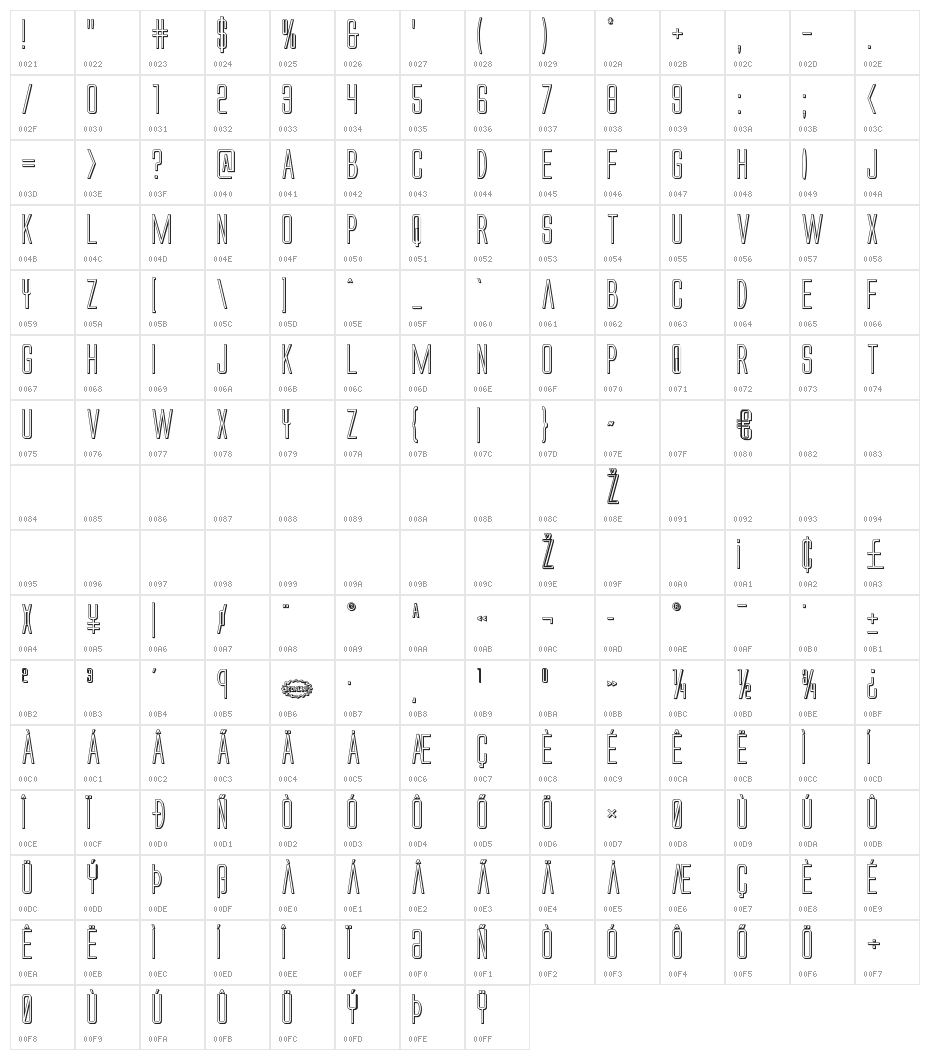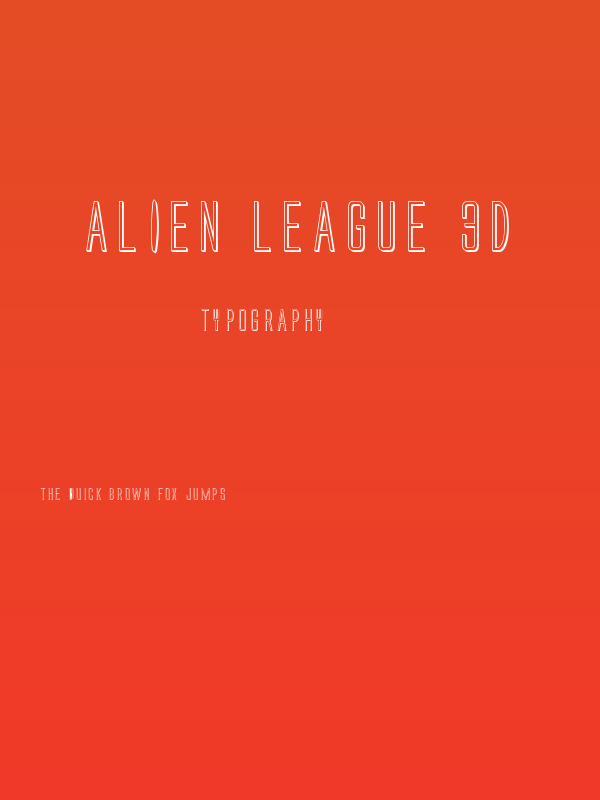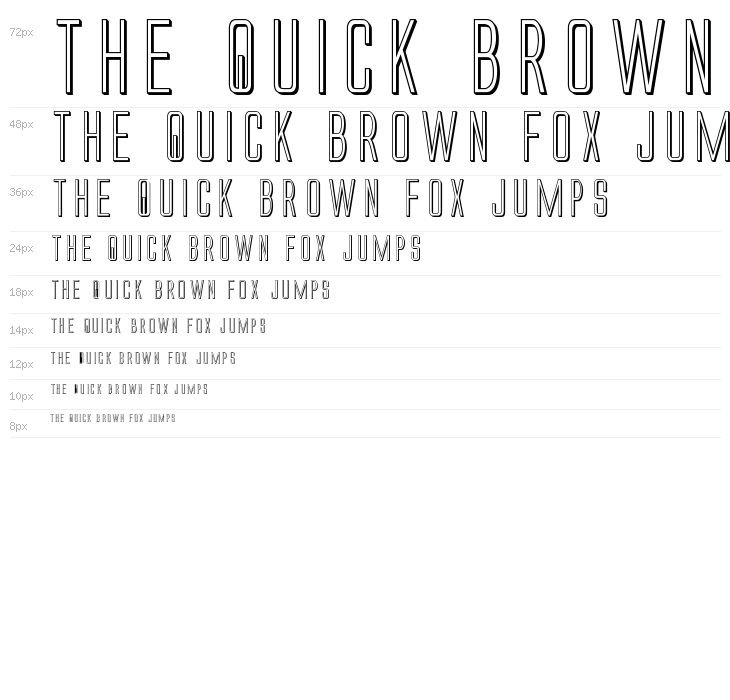
Alien League 3D Font
Alien League 3D Description
This font features a futuristic and geometric design, characterized by its clean lines and open, airy structure. The uppercase and lowercase letters share a consistent height, giving it a uniform appearance. The characters are outlined, creating a three-dimensional effect that adds depth and visual interest. The numbers and special characters maintain the same stylistic approach, ensuring cohesion across all elements. This font's unique style makes it stand out, ideal for projects that require a modern and innovative look.
| Proposed Projects | Ideal for sci-fi themed designs, video game titles, tech branding, and futuristic posters. |